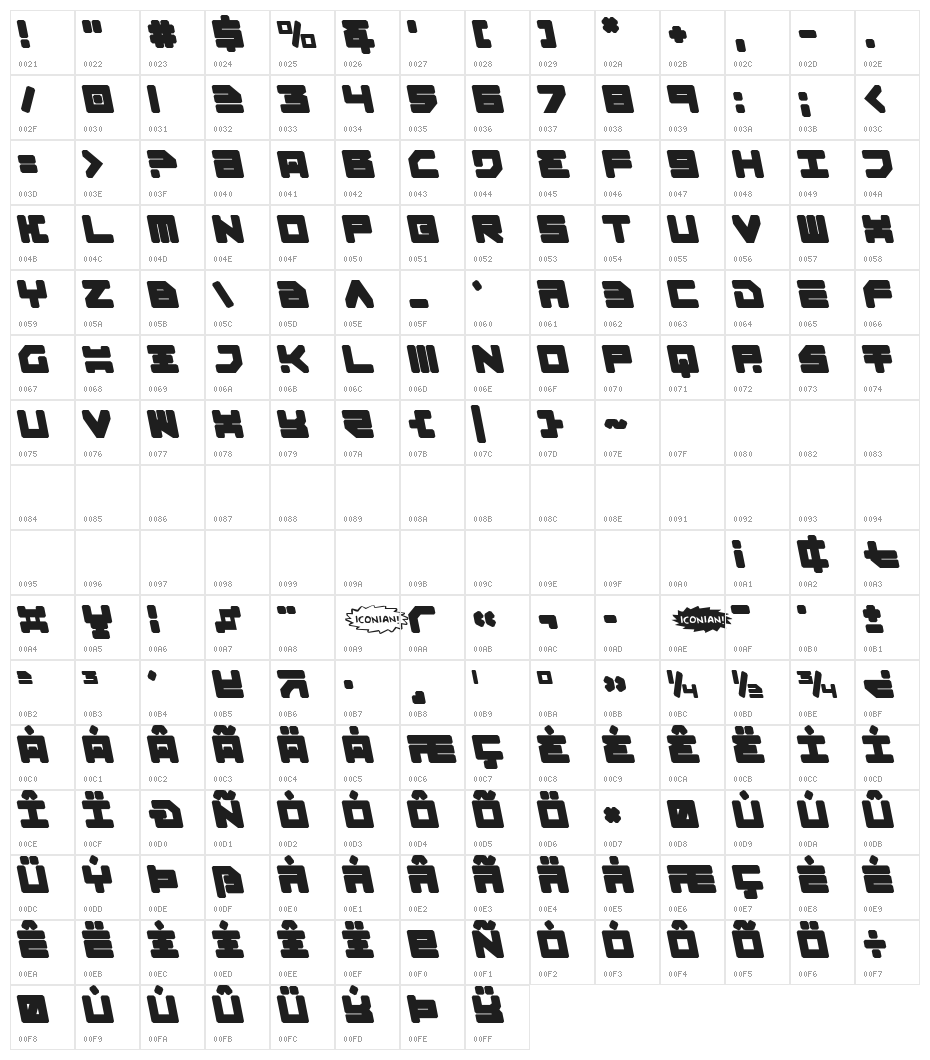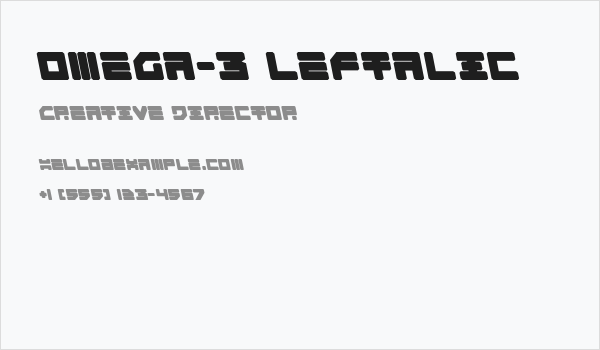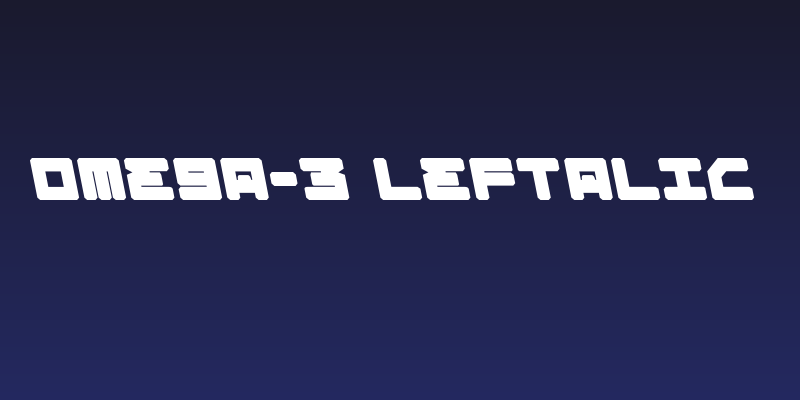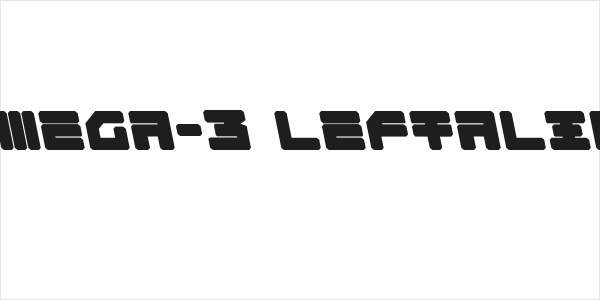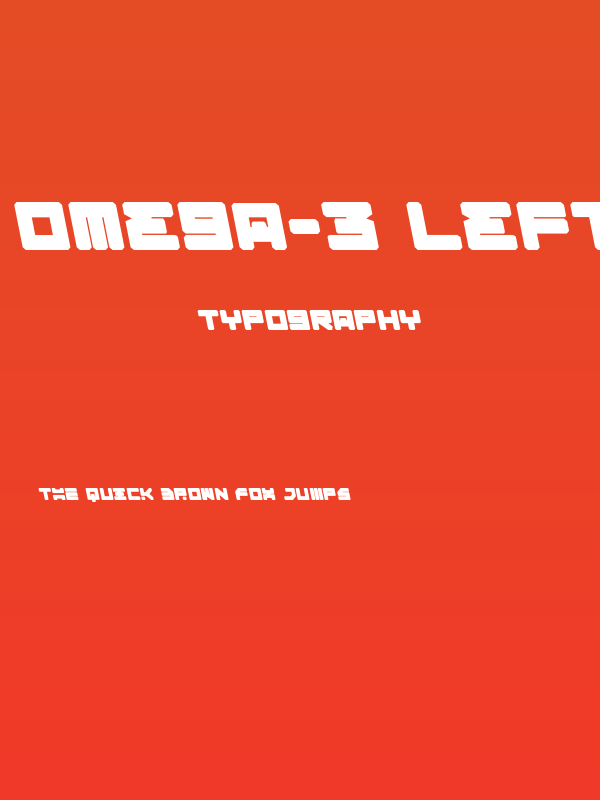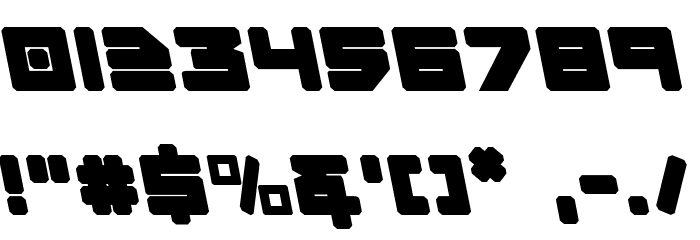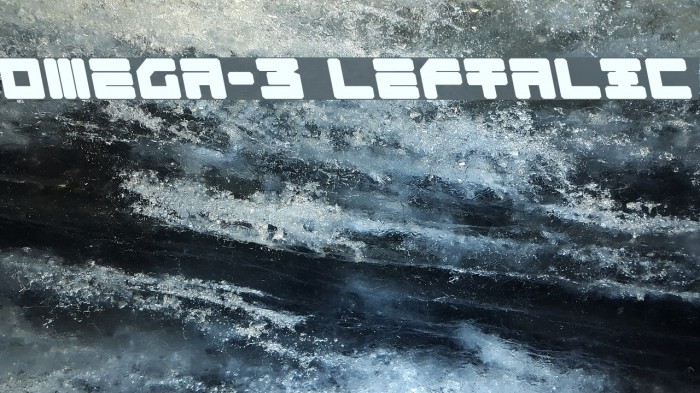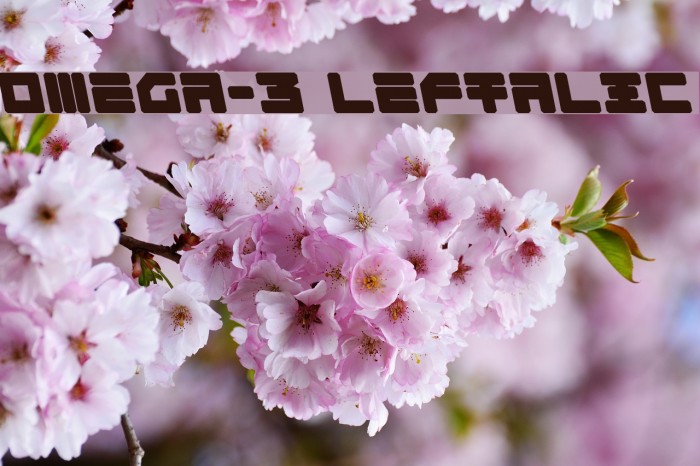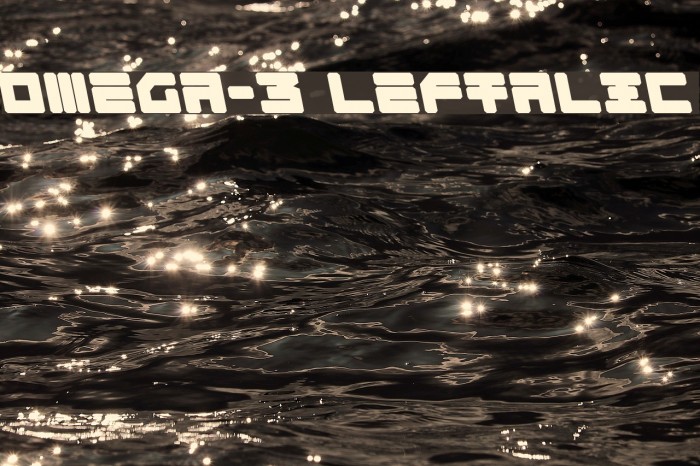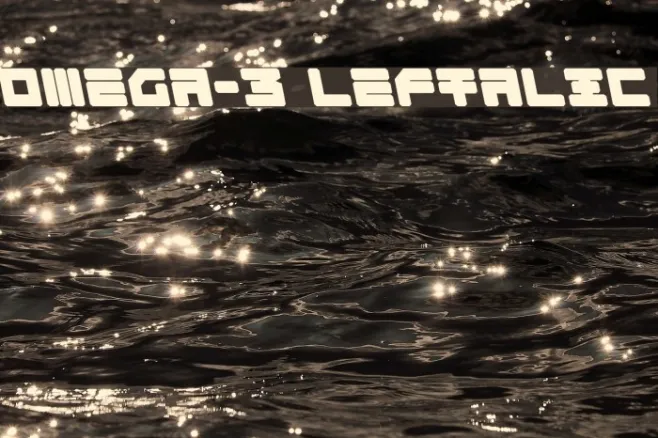
Omega-3 Leftalic Font
Omega-3 Leftalic Description
This font features a bold, futuristic design with a strong geometric influence. The characters are constructed with thick, uniform strokes, creating a sense of solidity and impact. The angular shapes and sharp edges give it a modern, tech-inspired aesthetic. The uppercase and lowercase letters maintain a consistent style, with the lowercase mirroring the uppercase in form. Numbers and special characters follow the same design principles, ensuring a cohesive look across all glyphs. The font's unique style makes it stand out, ideal for projects that require a bold statement.